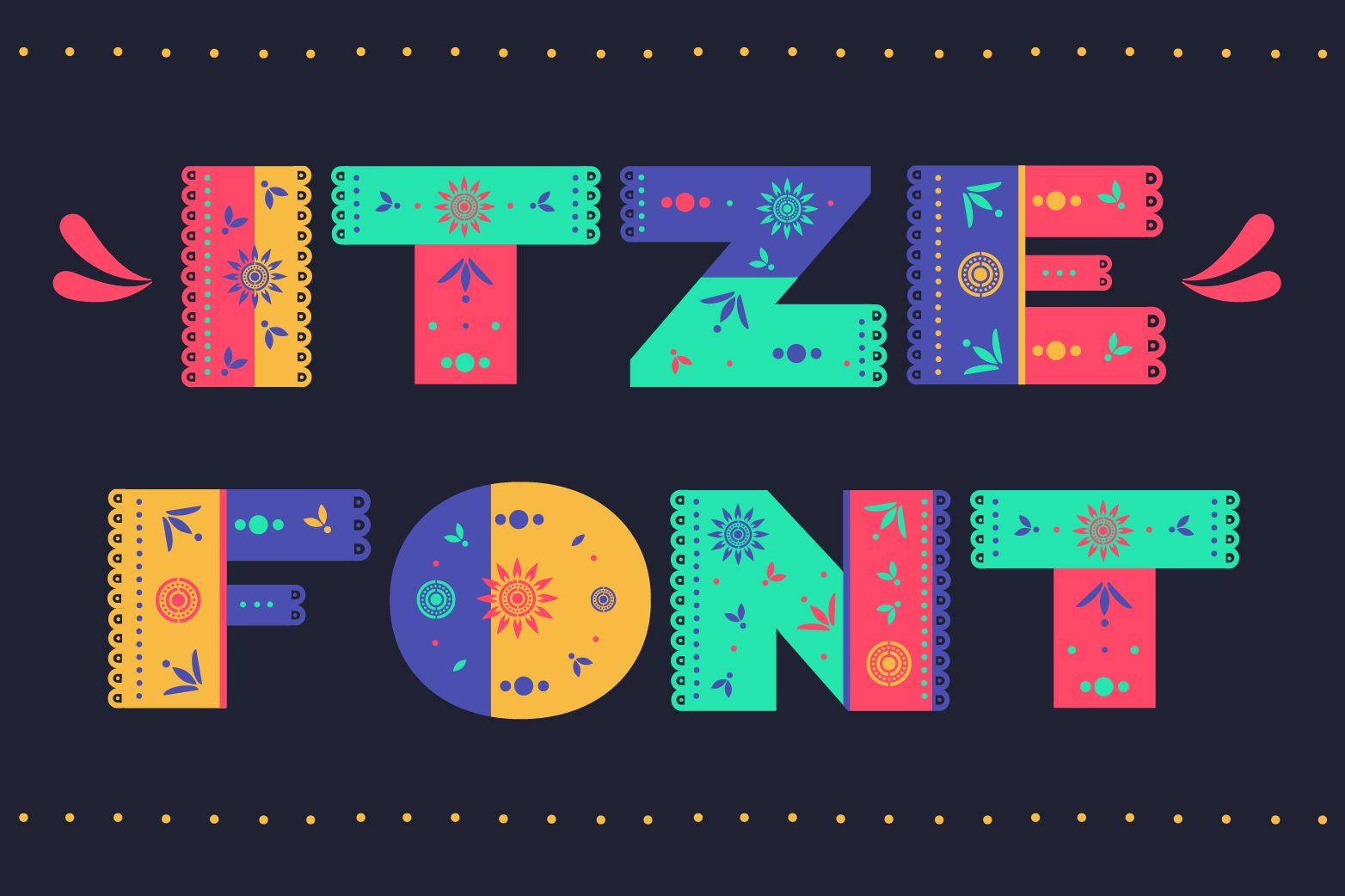
Itze Font
Decorative typography inspired by elements and Mexican culture. Itze font consists of 3 variables - Color, Regular and Light. Ideal for menu cards, bags, and all kinds of decorative design, modern and fun. If there is a problem, question, or anything about my product, please sent an email to yai.salinas@gmail.com. Thank you!